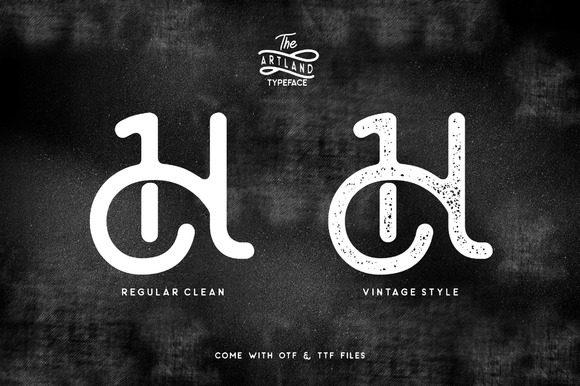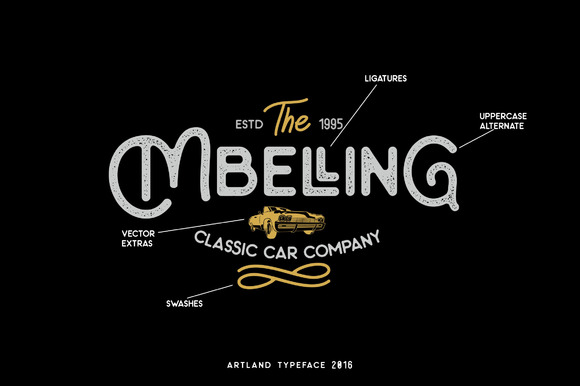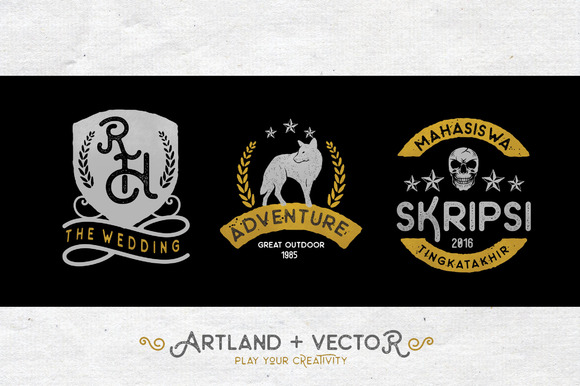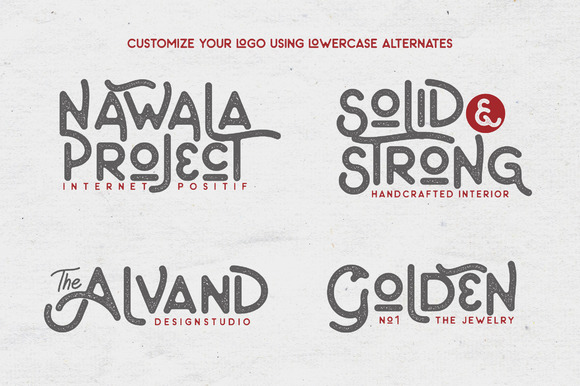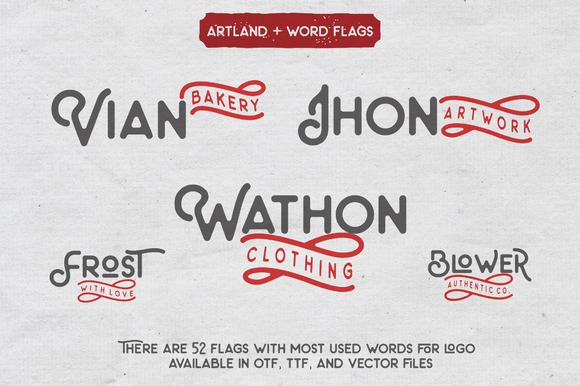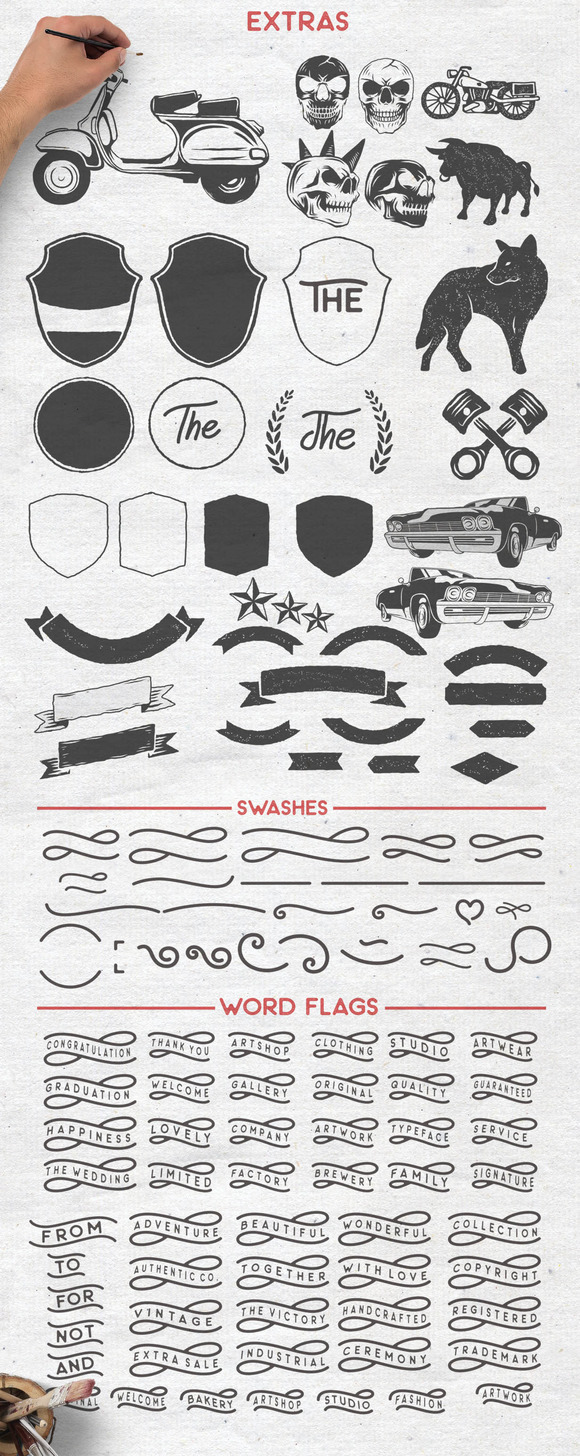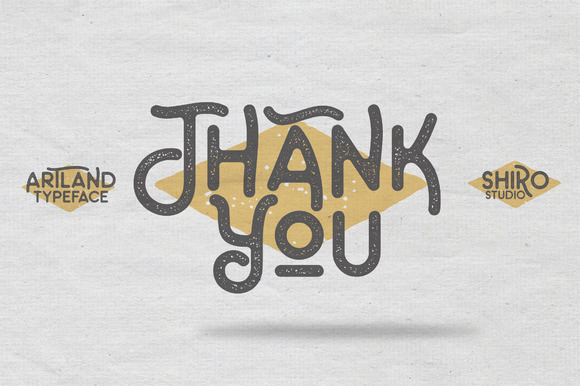
The Artland Typeface + Extras
The Artland Typeface is a stylish sans serif font. The font comes with Clean and Vintage . Very cool for branding, poster, logo, and any other artworks. Using artland will be better if we play the lowercase and uppercase alternate and combining it with swashes and vector packs.